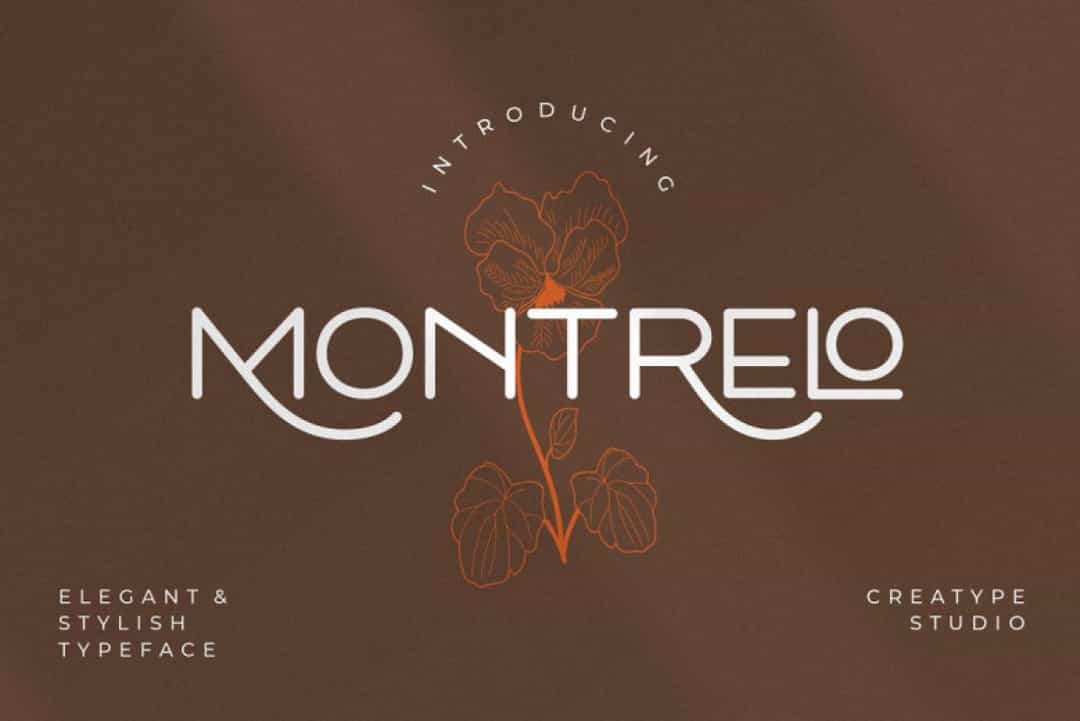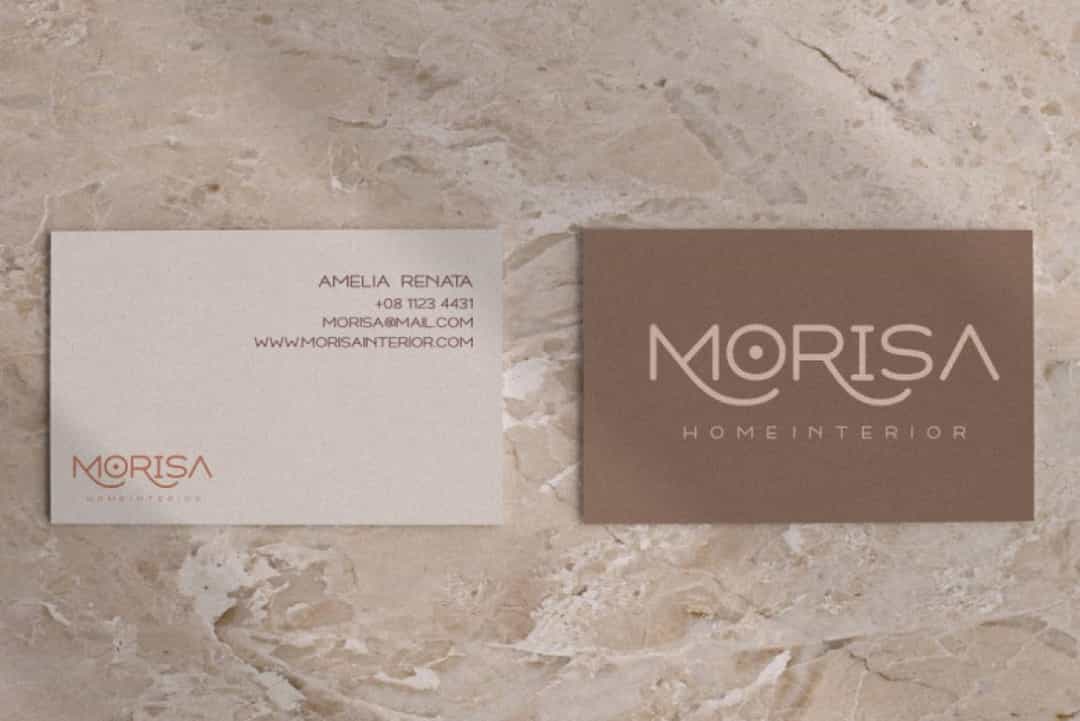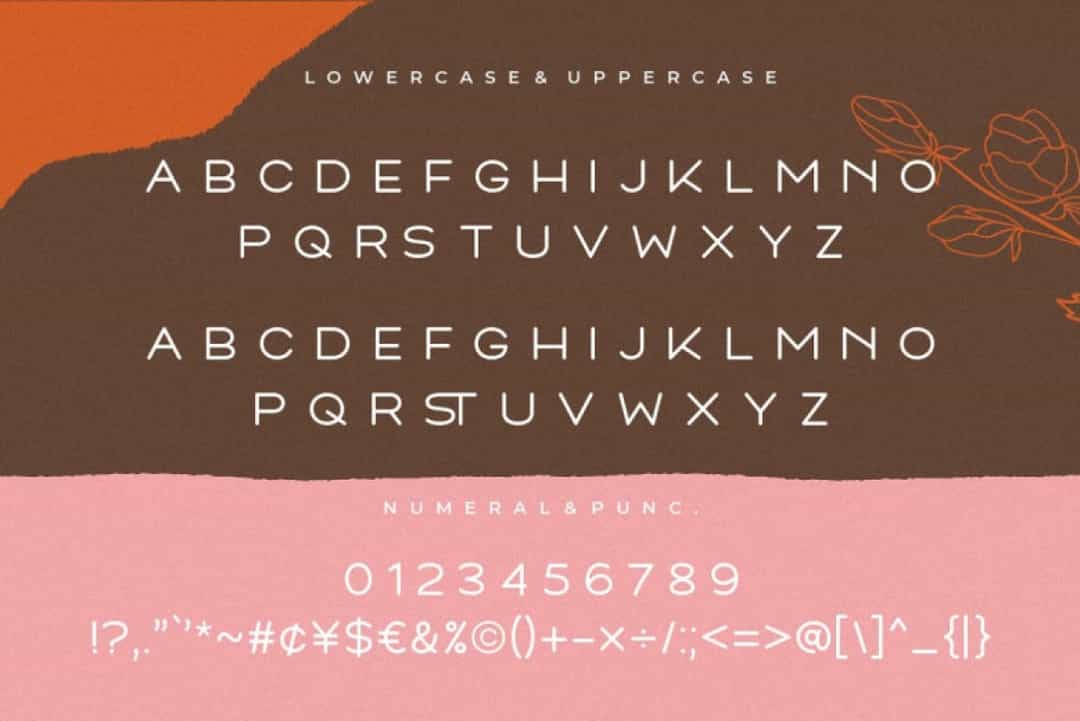
Discover Montrelo Font, part of the Sans Serif collection—a versatile and unique font perfect for adding a personal touch to your projects. Download it for free and enjoy crafting designs with style, from invitations to social media posts. This font is available exclusively for personal use, giving you the freedom to create without limits. Unlock your creativity with Montrelo Font today!
Montrelo is a contemporary sans serif typeface with delicate appearance. Ideal for small to large sizes, Montrelo is used in logos, social media, branding projects, logo designs, and much more even in wedding invitations.